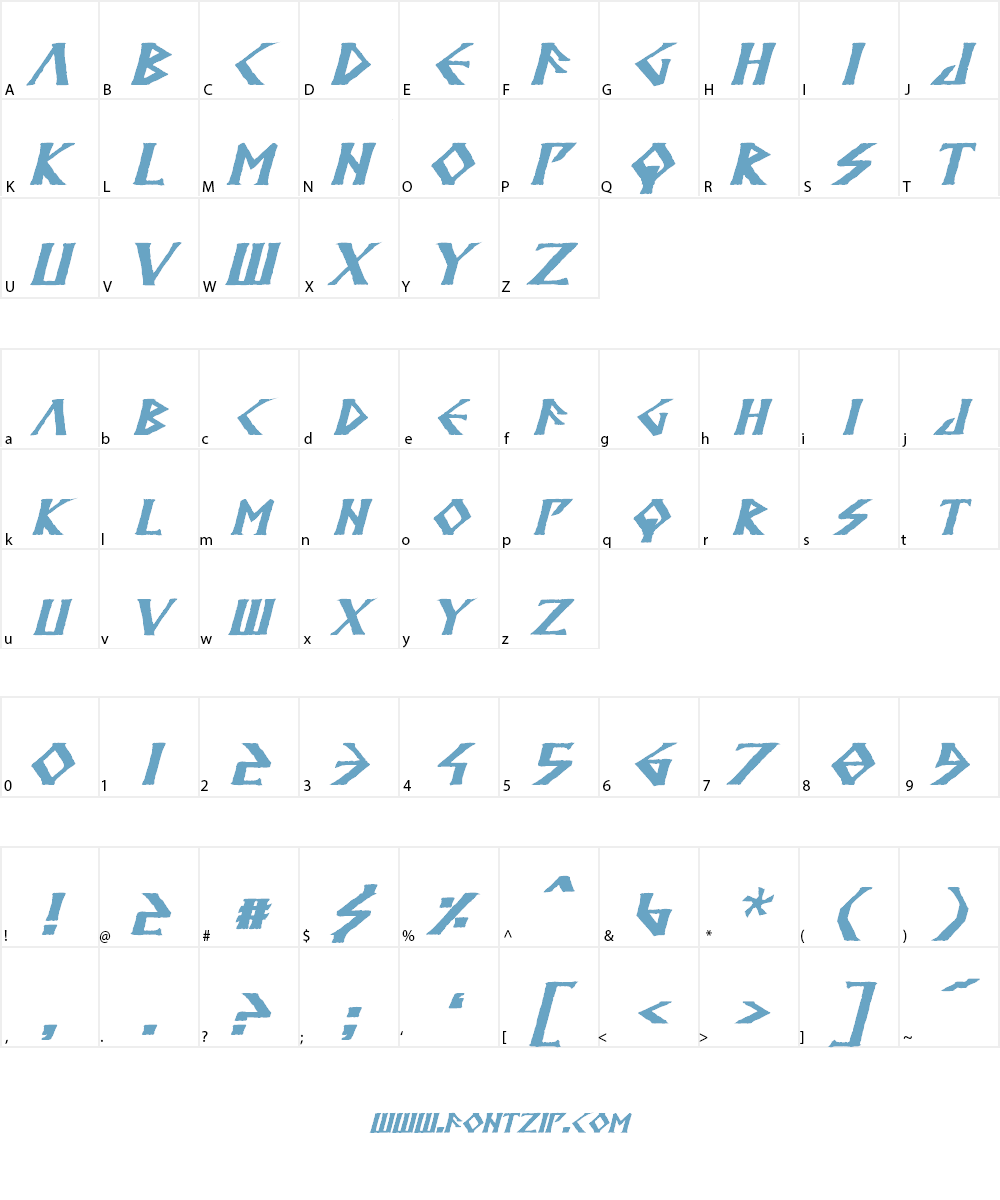
AngloDavek is an English-readable version of the fantasy 'Davek runes' script. The font is heavily based on classic "Futhark" style runes and meant to envoke a dwarvish feel. Includes full alphabet, extended punctuation, euro. Includes regular bold, italic, and bold-italic faces.